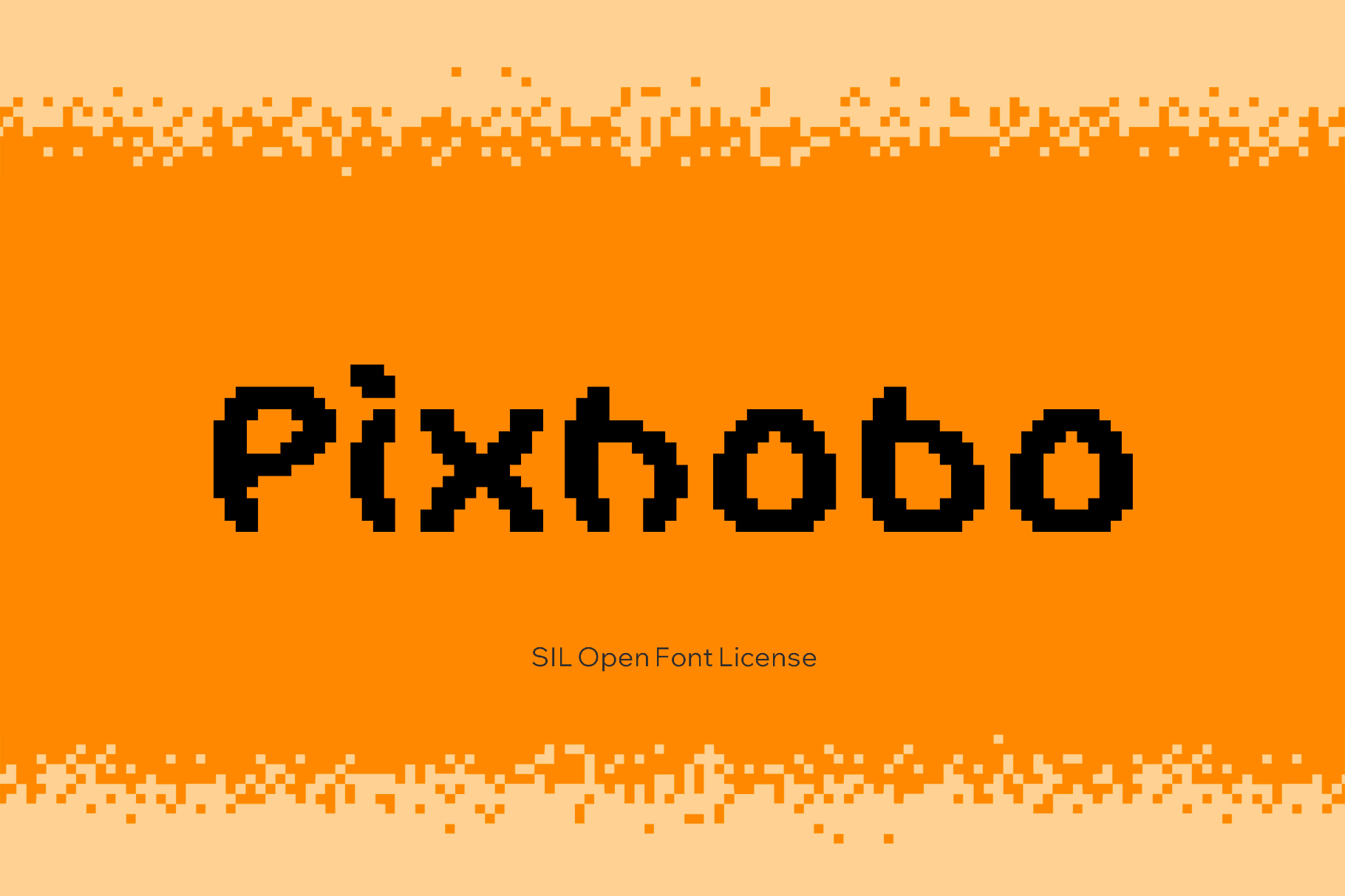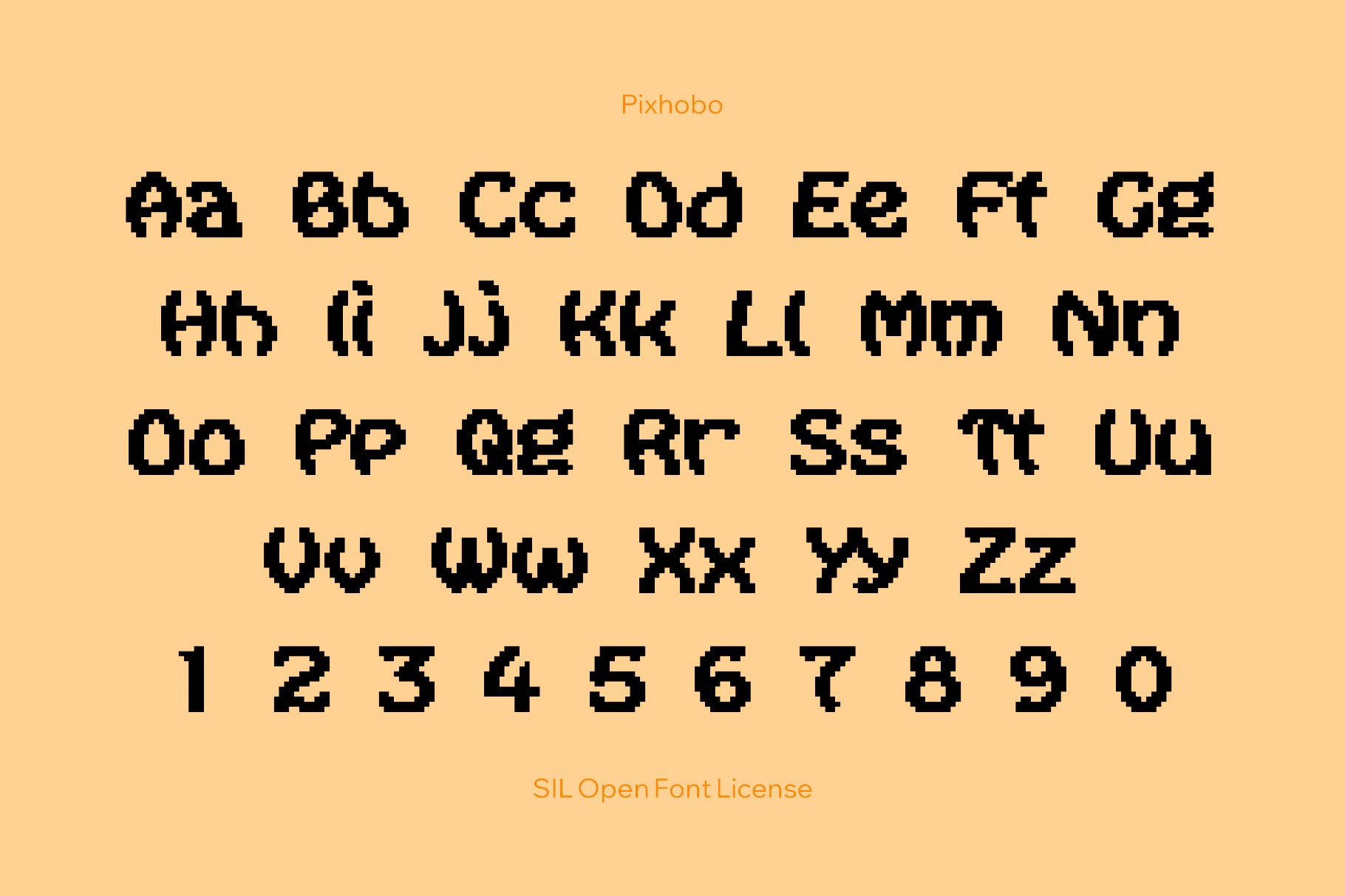
Pixhobo
Pixhobo presents a bold, geometric display shaped by street lettering and late-20th-century poster graphics. It suits branding systems, logotypes, editorial headlines, album covers, packaging, motion titles, and social media graphics. Its broad script support also makes it practical for international campaigns, cultural projects, and expressive typographic statements across print and digital contexts.
- Uppercase and lowercase letters, numbers, punctuation, and symbols.
- International characters with multilingual support across extended Latin, extended Cyrillic, and Greek scripts.
- Ligatures for common pairs.
- Extended support for mathematical symbols and metrics.
- Extra symbols for icons, interface cues, and decorative details.